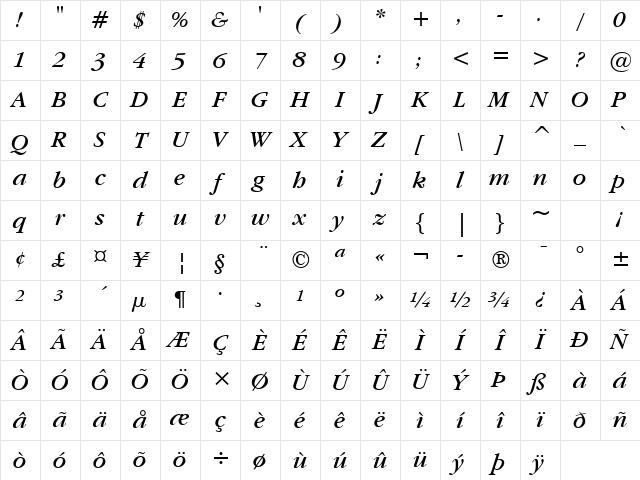
Complete GarmdITC Bk BT Book Italic glyph index. Displaying only characters natively supported by GarmdITC Bk BT Book Italic font.
GarmdITC Bk BT is a composed and adaptable typeface that performs quietly and consistently across a wide range of design contexts. The slanted form adds forward momentum and visual energy.